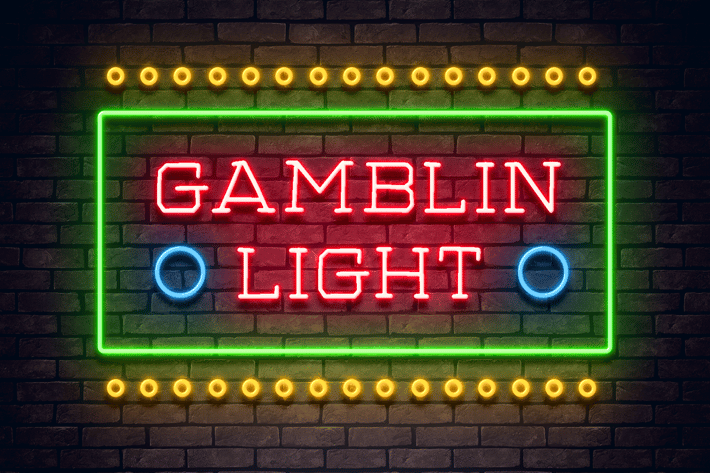
Gamblin Light Neon Font
Gamblin Light is a neon typeface inspired by neon light & lamp, this typeface is ready to use and suitable rush design like for Modern design, cover book, poster, flyer, colorful, party design, club night, and etc